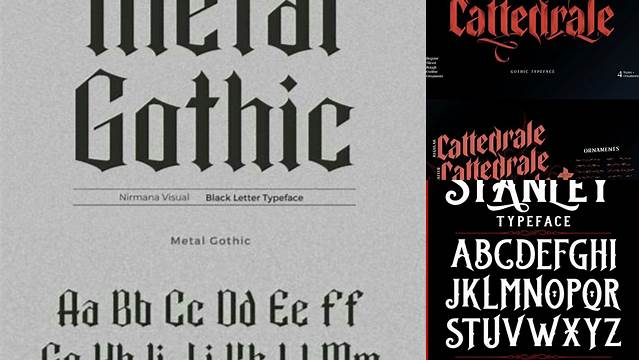
Free Gothic Fonts For Procreate: A How-To Guide
What are Gothic Fonts and Why Use Them?
Gothic fonts, also known as Blackletter fonts, evoke a sense of history, mystery, and timeless elegance. Characterized by their ornate strokes, sharp angles, and dramatic flair, these fonts have been used for centuries in religious texts, historical documents, and artistic creations. But why should you consider using them in your Procreate projects?
First off, gothic fonts can add a unique touch of sophistication and drama to your artwork. Imagine creating a poster for a fantasy novel, a logo for a vintage-inspired brand, or a striking tattoo design. The distinctive look of gothic fonts can instantly elevate your work, making it stand out from the crowd.
Secondly, using gothic fonts allows you to tap into a rich historical and cultural heritage. These fonts have been associated with power, tradition, and artistic expression for centuries. By incorporating them into your designs, you're not just adding text; you're adding a layer of meaning and depth.
Moreover, gothic fonts can be incredibly versatile. While they're often associated with dark and serious themes, they can also be used in more playful and creative ways. Experiment with different colors, textures, and effects to see how you can put a unique spin on these classic fonts. Whether you're designing a wedding invitation, a band poster, or a piece of digital art, gothic fonts can help you achieve a look that's both striking and memorable.
In conclusion, exploring gothic fonts offers a fantastic opportunity to enhance your artistic toolkit and create visually stunning projects in Procreate. Their historical significance, unique aesthetic, and versatility make them an invaluable asset for any digital artist looking to add a touch of elegance and drama to their work.
Creative Fabrica (Freebies Section): Creative Fabrica is a subscription-based platform, but they also have a freebies section where they offer a rotating selection of free fonts, graphics, and other design resources. Keep an eye on their freebies section, as you might just find the perfect gothic font for your next Procreate project.
MyFonts: MyFonts is a reputable source for premium fonts, but they occasionally offer free fonts as part of promotional campaigns. Sign up for their newsletter to stay informed about these freebies, and you might snag a professional-quality gothic font without spending any money.
Before downloading any font, always double-check the license to make sure it aligns with your intended use. Some fonts are free for personal use only, while others can be used for commercial projects. Pay attention to these details to avoid any potential legal issues down the road. And remember, even if a font is free, it's always a good idea to credit the designer if possible. Show some love to the creators who make these amazing resources available to us!